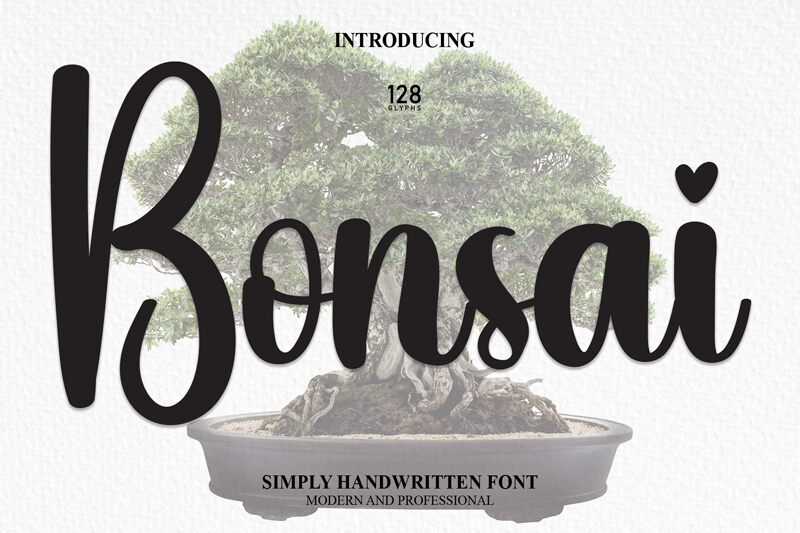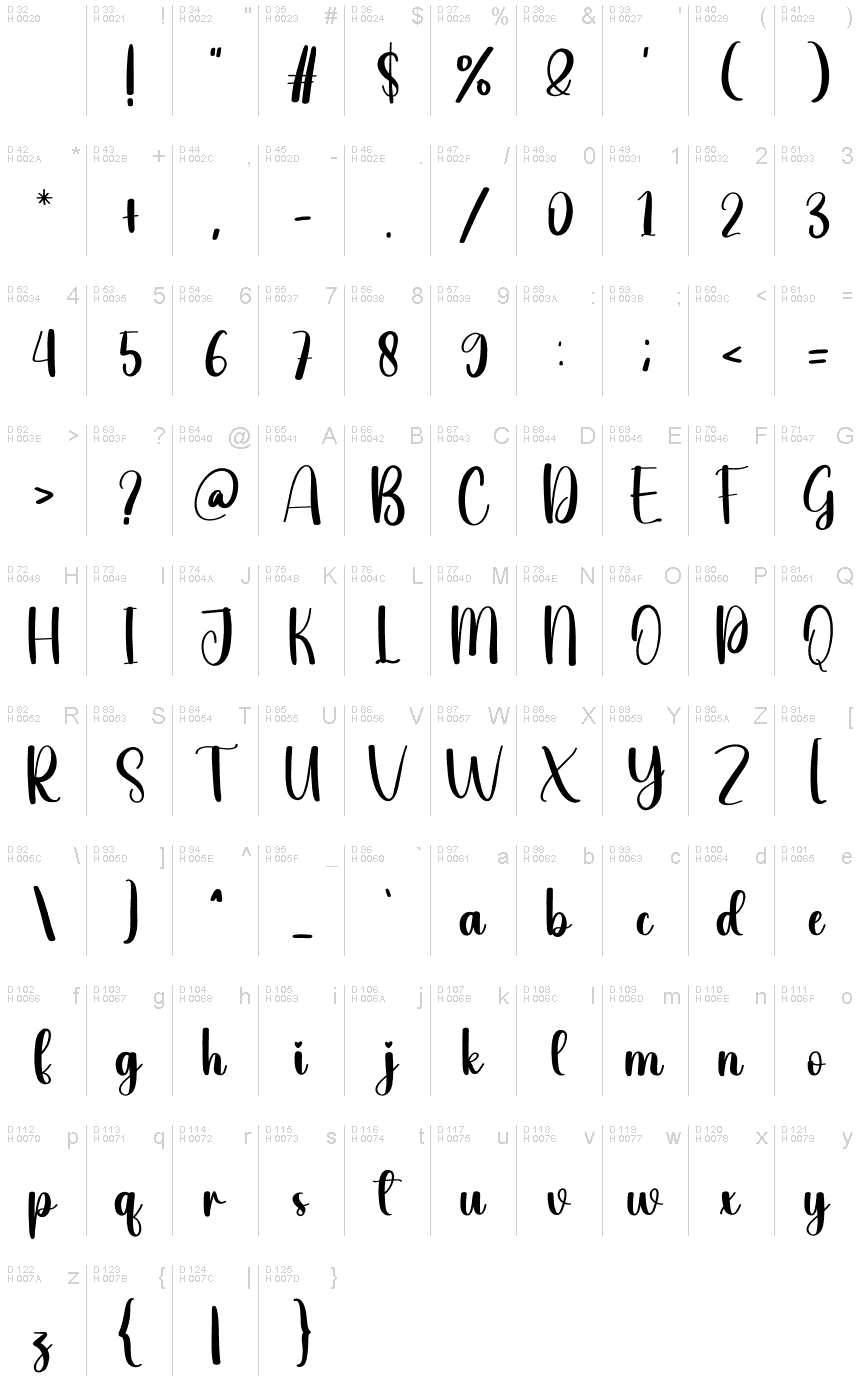
Bonsai
Bonsai, a creation by Scratchones, is a semi-condensed handwritten font that exudes charm and personality. It boasts elegantly crafted letters that fuse casual flair with a touch of sophistication, making it an excellent choice for designers looking to inject warmth and individuality into their projects. The Bonsai font's aesthetic is inviting and expressive, with each character lovingly designed to appear as though it was penned by hand.
This font's semi-condensed width allows for efficient use of space without sacrificing readability, ensuring that your message stands out with clarity and style. Whether you're crafting invitations, branding materials, or engaging social media graphics, Bonsai brings a humanistic touch that resonates with viewers.
With its versatile handwritten style, Bonsai bridges the gap between approachable informality and artistic elegance. This balance makes it suitable for an array of creative endeavors—from logo design to editorial layouts—allowing your work to flourish like the miniature tree it's named after.